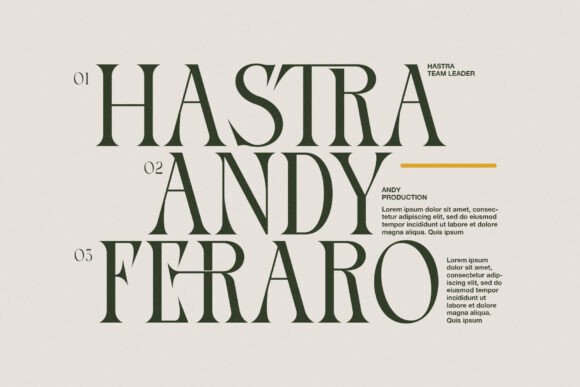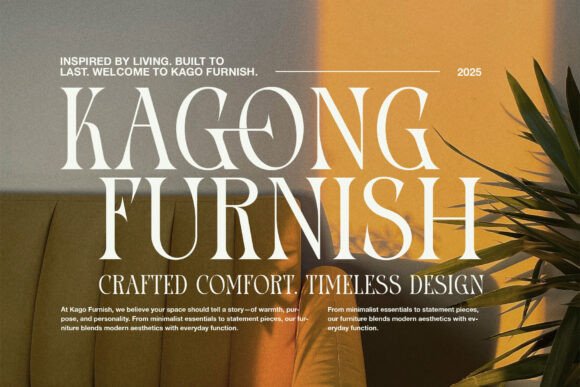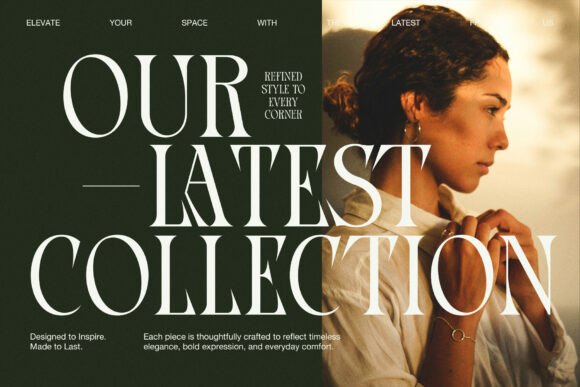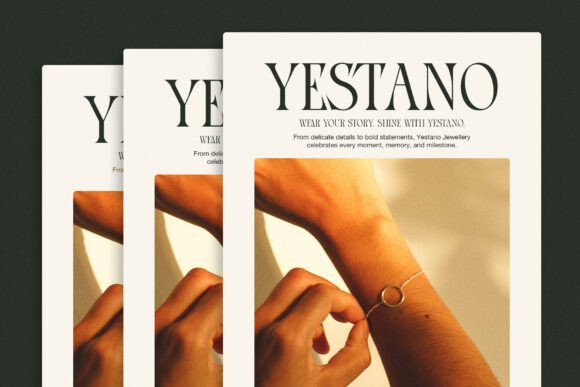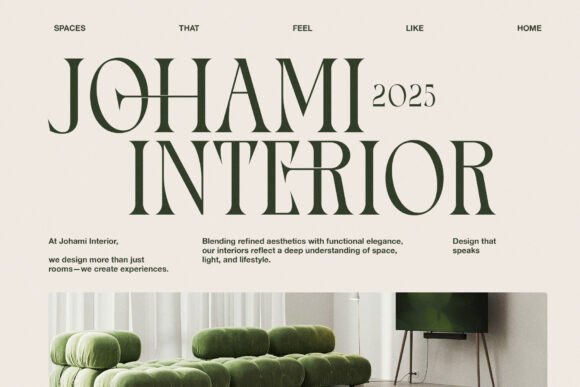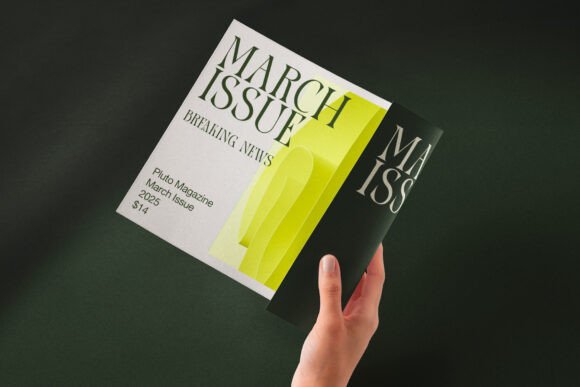
Introduction to Gastone Font
Presenting **Gastone Elegant Serif Font**, a perfect blend of modern sophistication and timeless elegance.
Crafted for those who appreciate beauty in every detail, Gastone boasts distinctive serifs and refined letterforms that make it stand out in any design project Whether youโre creating a luxurious **logo**, building a brand identity, or designing a sleek **website**, this font adds an elevated, stylish touch to your visuals.
Key Features of Gastone Font
Why Choose Gastone Font?
Gastone Font offers exceptional quality and versatility, making it a valuable addition to your design toolkit. Whether you’re creating for personal projects or commercial use, Gastone Font delivers professional results.